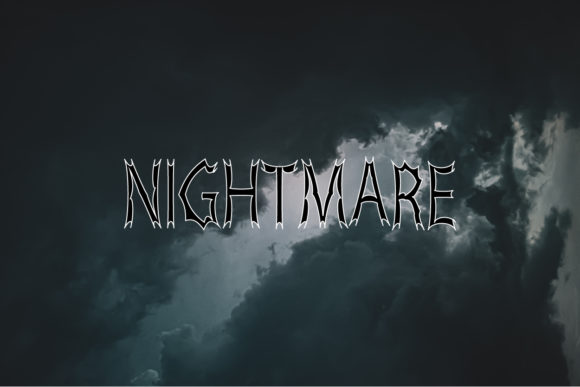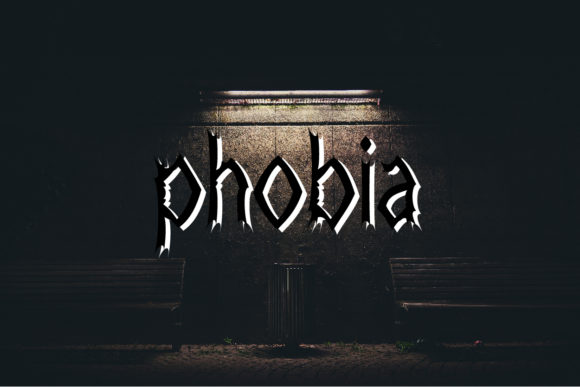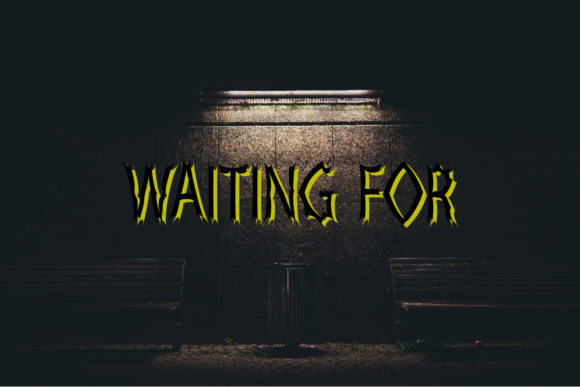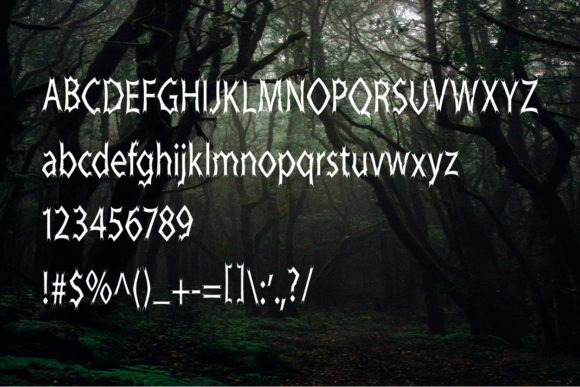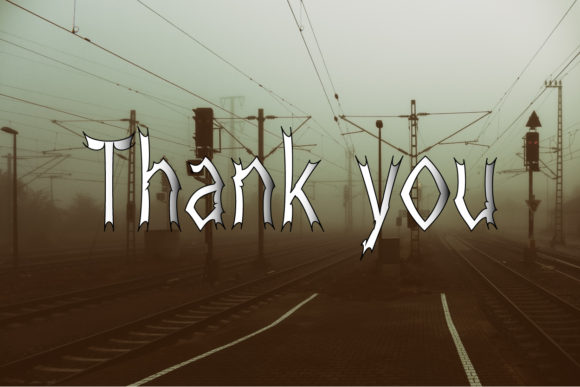
Unleashing the Spooky Spirit with Fear Font
As a designer, there’s nothing quite like that moment when an idea strikes and you know you’ve stumbled upon something special. It might be a bold color palette, an unexpected font combination, or a clever way to incorporate textures – whatever it is, it’s the spark that ignites your creativity and sets your project ablaze. For me, that moment came when I discovered Fear Font, a unique and dramatic display font that adds an air of sophistication to any Halloween-related design.
Fear Font is more than just a font – it’s a statement piece that elevates your designs and commands attention. With its bold, gothic-inspired letters, it’s the perfect addition to any spooky or eerie project. Whether you’re creating invitations, social media graphics, or even a haunted house website, Fear Font is sure to make your design stand out from the crowd.
As a designer, you know how valuable it is to have the right tools at your disposal. Fear Font is one of those tools that can take your designs to the next level, adding a touch of drama and flair that’s hard to replicate with other fonts. So why settle for ordinary when you can unleash the power of Fear Font and create truly unforgettable designs?
Fear Font Key Features
- Font Family: Fear Font is a sans-serif font family designed to evoke a sense of unease and tension.
- Unique Characteristic: Fear Font features a distinctive, distressed design that gives the impression of being worn or damaged, adding to its eerie and unsettling atmosphere.
Fear Font Review
I’ve had the chance to play around with the Fear Font, and I must say it’s an interesting addition to any design project. ✨ One of the things that works well is its unique, gothic-inspired aesthetic. It’s perfect for creating a dramatic or ominous atmosphere in your designs.
- Effective in creating a dark or eerie vibe
- Wide range of font styles and weights available
- Can be used in a variety of design contexts, from logos to typography
However, there are a few limitations to consider. ⚠️ One of the main issues is that the font can be quite difficult to read, especially at smaller sizes. This may make it challenging to use in body text or other situations where readability is crucial.
- Can be difficult to read at smaller sizes
- Lack of support for certain languages
- May not be suitable for all design styles or themes
Overall, I think the Fear Font is a great choice for designers who want to create a dramatic or eerie atmosphere in their work. While it may have some limitations, its unique aesthetic and versatility make it a valuable addition to any design toolkit.
Tips: Use Fear Font to add a sense of tension or unease to your designs. Experiment with different font sizes and colors to create a striking effect.
Tips: Use Fear Font to create a dramatic or eerie atmosphere in your designs. Experiment with layer blending modes and opacity to achieve a haunting effect.
Tips: Use Fear Font to add a sense of urgency or importance to your presentations or documents. Experiment with font sizes and colors to create a striking effect.
Fear Font is commonly used in:
- Horror movie posters and marketing materials.
- Creepy or eerie website designs.
- Scary or suspenseful video game graphics.
- Spooky or supernatural-themed presentations and documents.